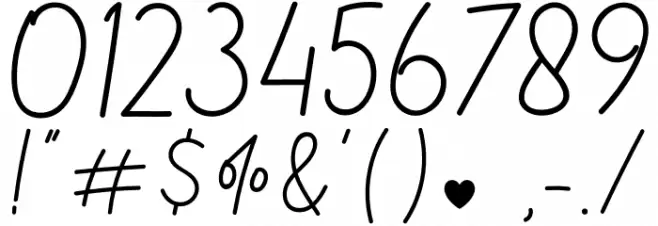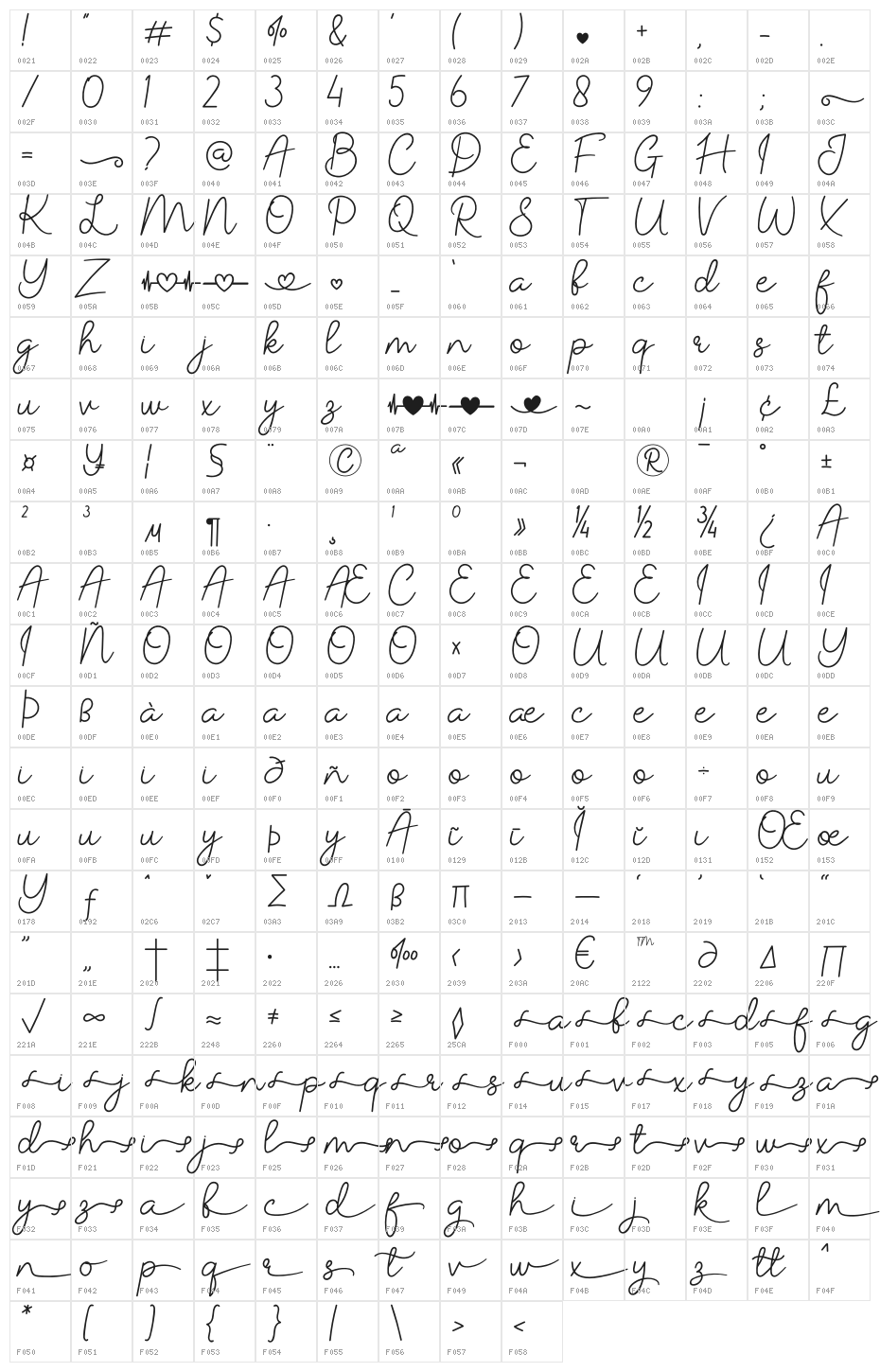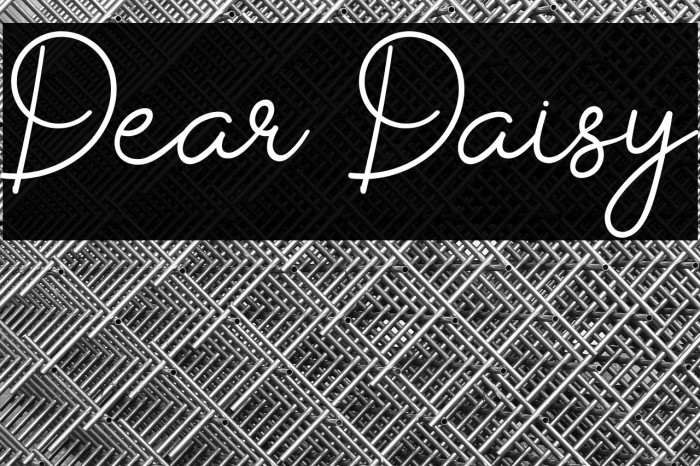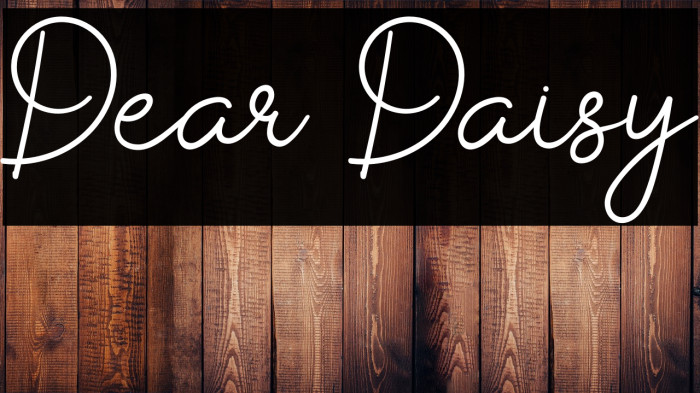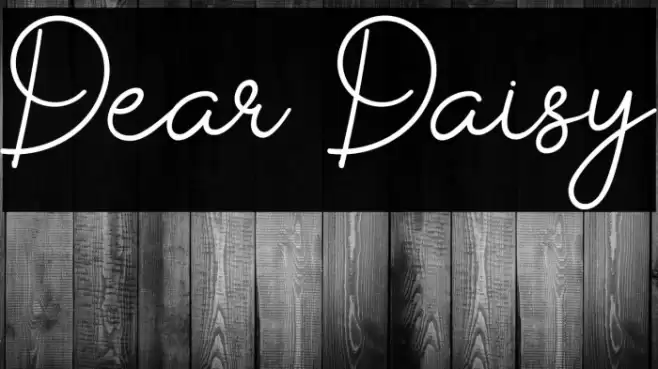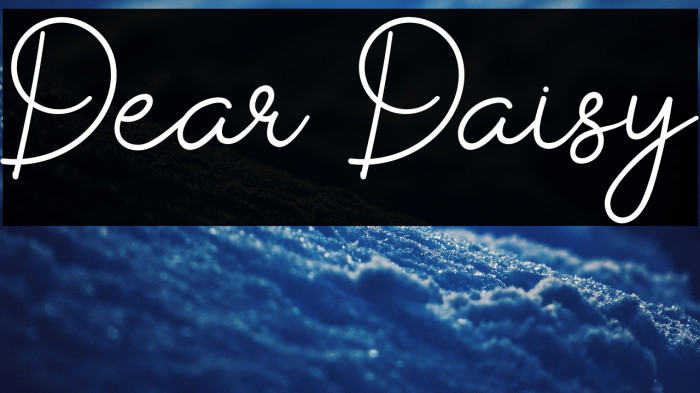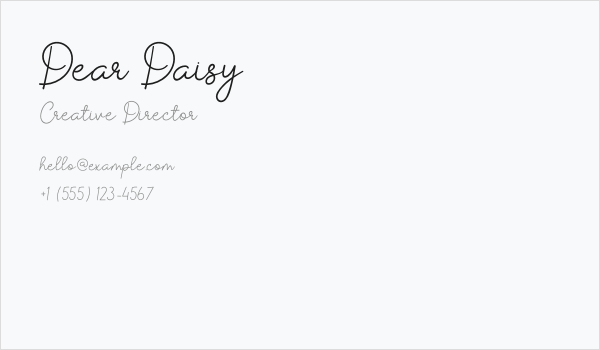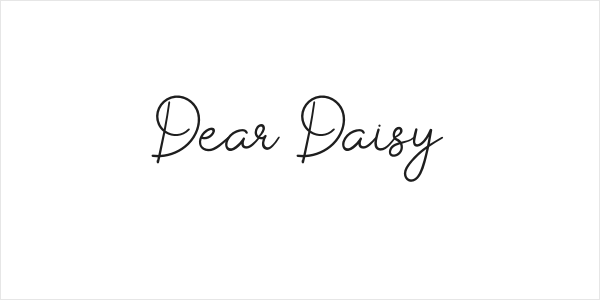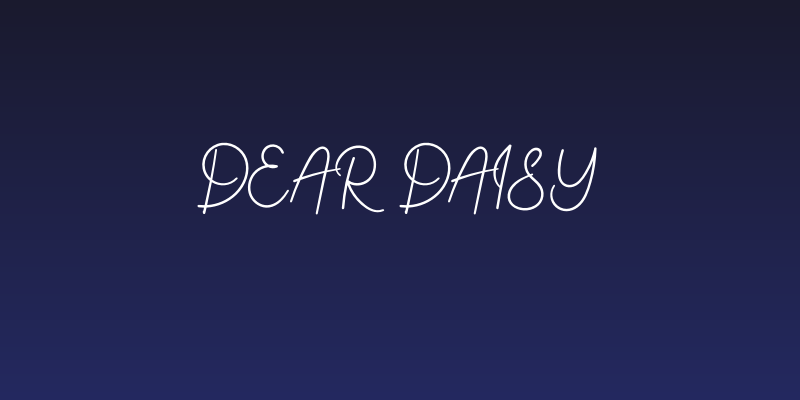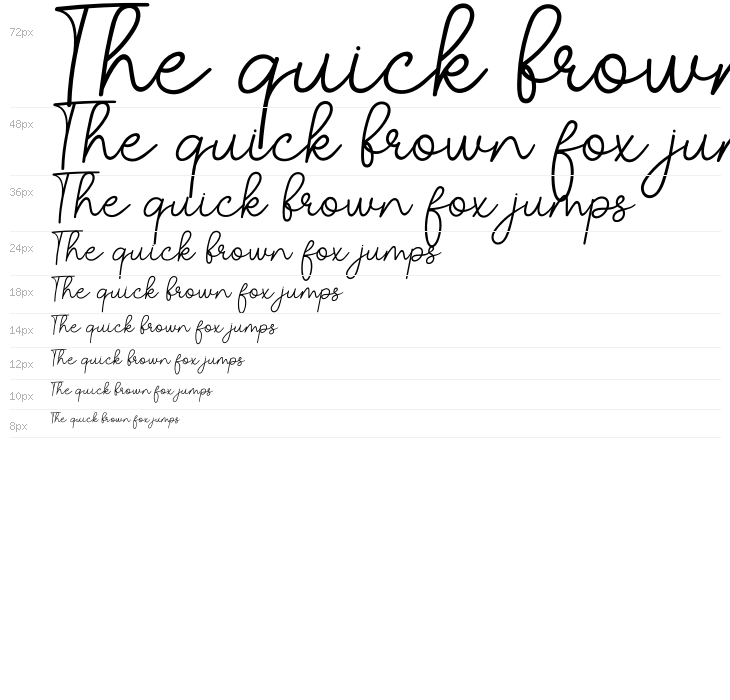
This font features a charming and fluid handwritten style, characterized by its elegant, flowing script. The uppercase letters are slightly more structured, maintaining a consistent height, while the lowercase letters exhibit a playful, cursive flair with varying heights and loops. The numerals are clear and legible, complementing the overall aesthetic with their rounded forms. Special characters are thoughtfully integrated, maintaining the font's cohesive style. The strokes are consistent in width, providing a harmonious appearance without stark contrast. This font exudes a personal and inviting feel, making it ideal for projects that require a touch of warmth and personality.
Use CaseLogos, Invitations, Personal Correspondence
Proposed ProjectsPerfect for wedding invitations, personal letters, greeting cards, and branding materials that seek a personal touch.